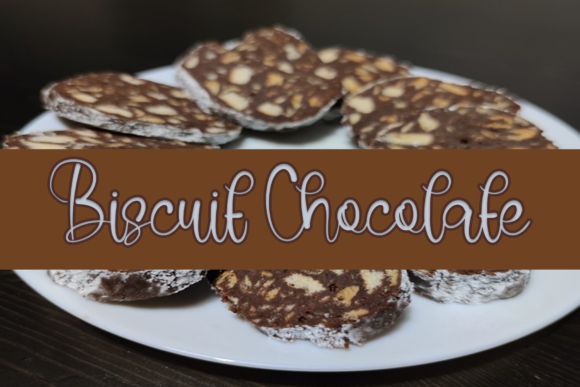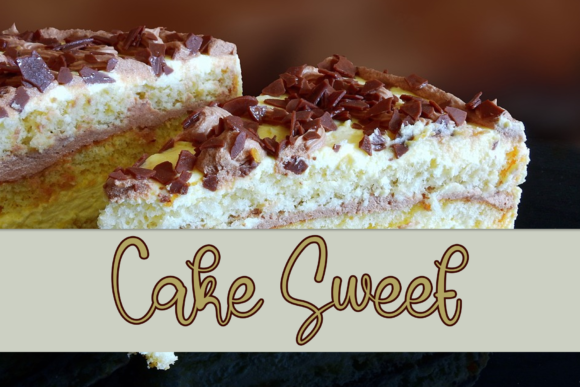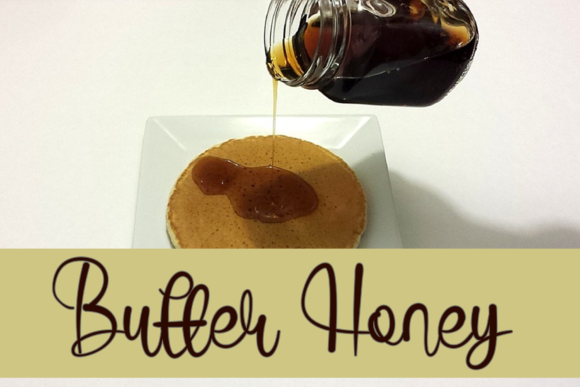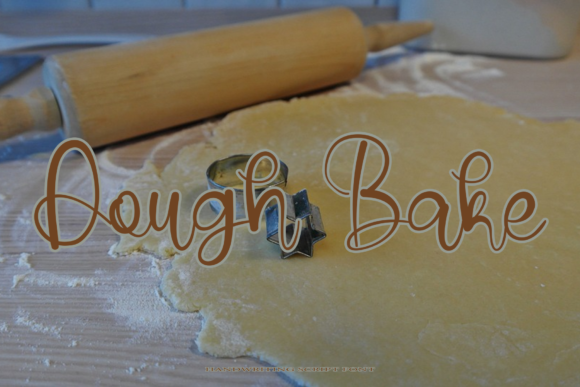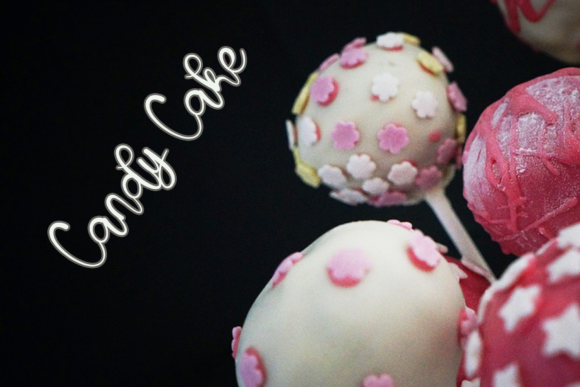
Butter Cake Font
About Butter Cake Font
Butter Cake feels incredibly elegant and flowing. It looks lovely on wedding invitations, thank you cards, quotes, greeting cards, logos, business cards and every other design which needs a customized touch.